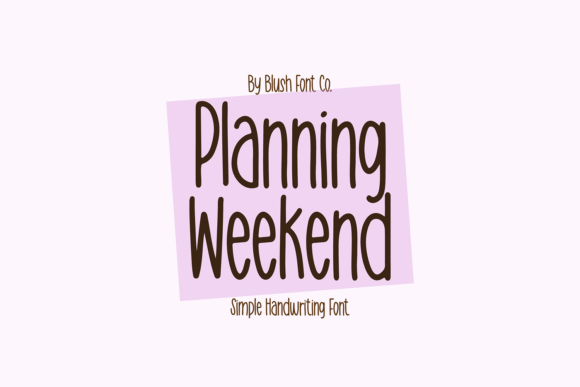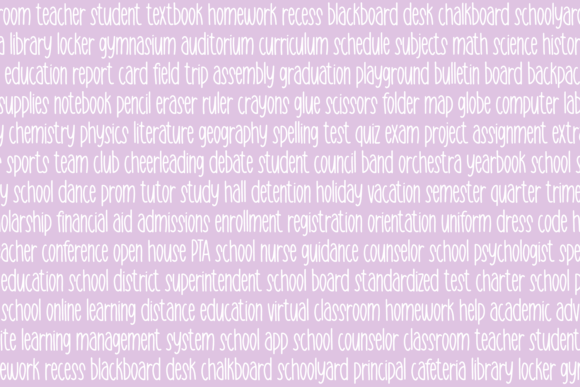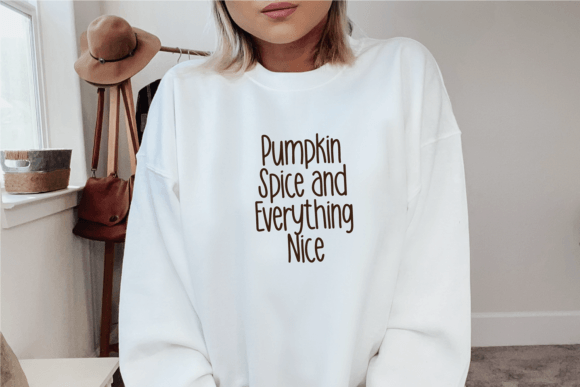
Planning Weekend Font
Planning Weekend is a tall and simple handwriting font with clean lines and easy-to-read letters. Its style is relaxed, making it perfect for casual designs like invitations, quotes, or journals. The font gives a friendly and modern look, with its neat and minimalistic appearance.